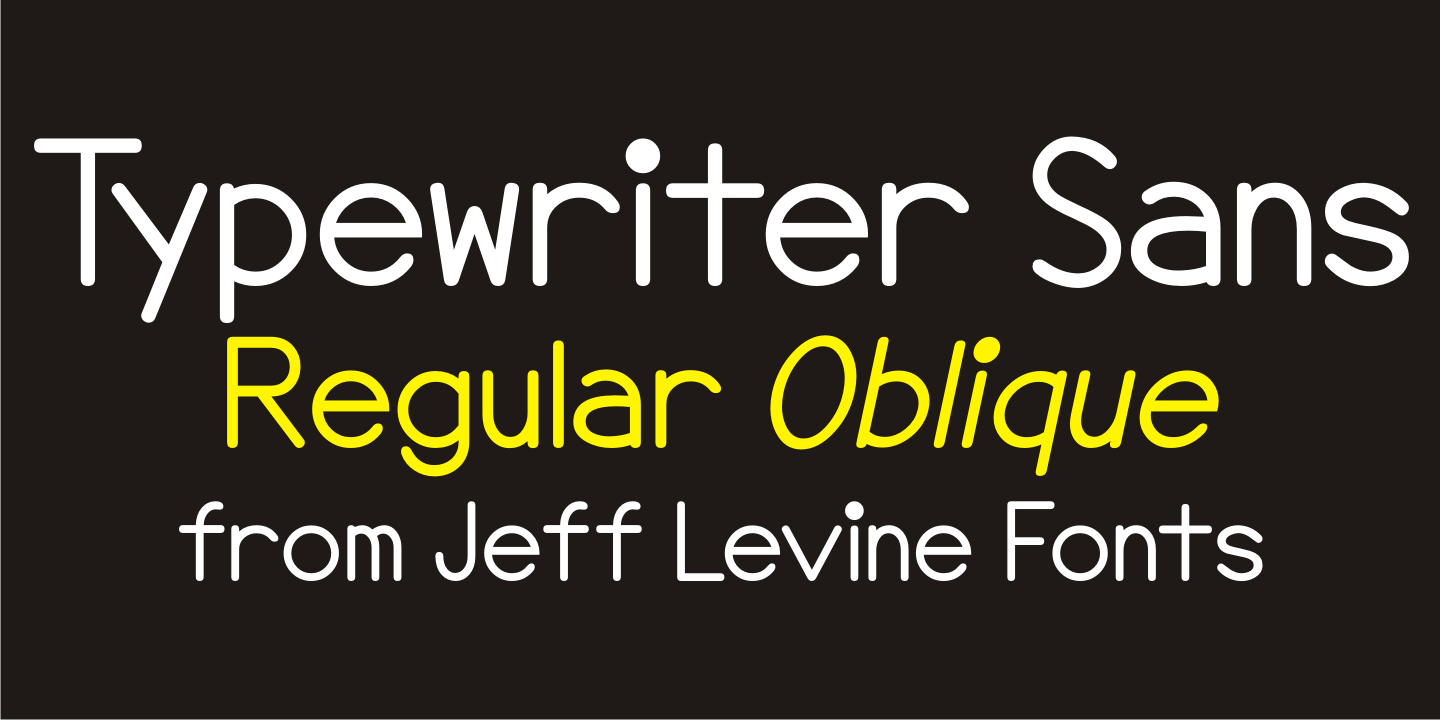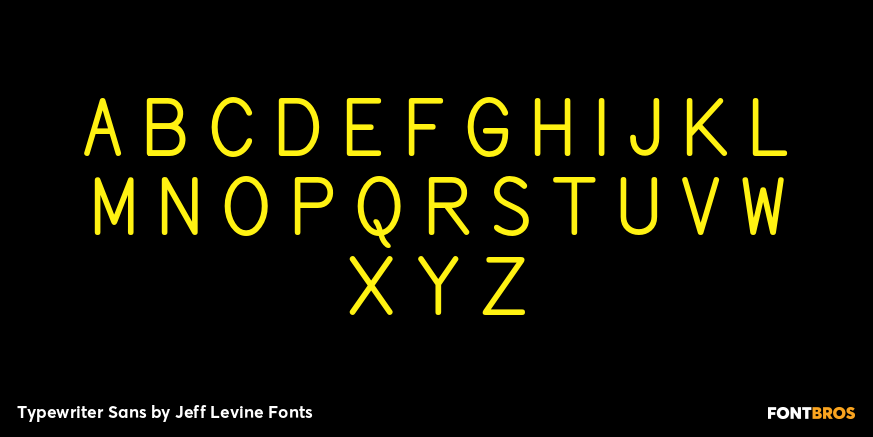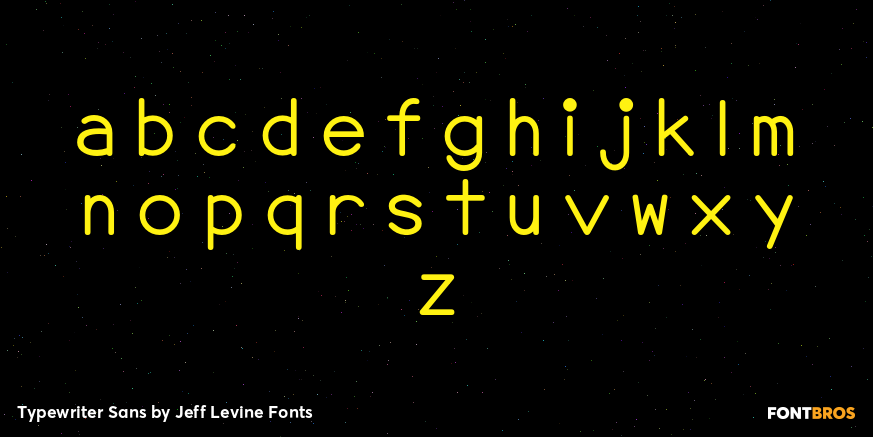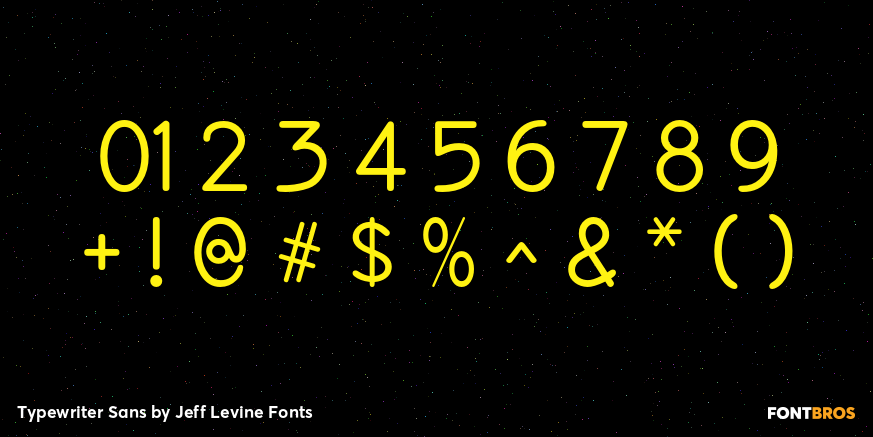
Typewriter Sans
At first glance, Typewriter Sans JNL seems to look like the pantograph lettering of an engraved sign or the rounded-end lettering from an architect's templates. It might also be mistaken for plastic pin-back lettering used on some bulletin boards.
In actuality, the design is based on examples of an electric typewriter ball element with a sans font named 'Dual Gothic', suggested for use 'in credit reports and other financial applications'.